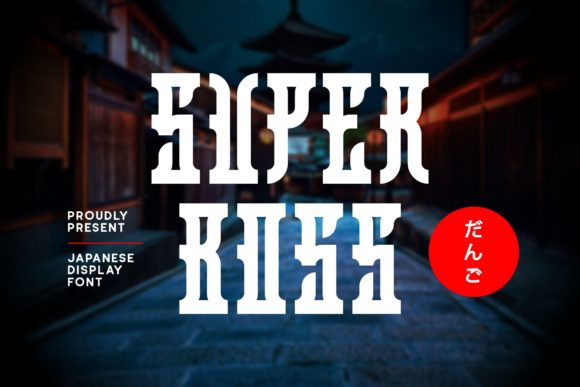
Unleash the Boldness: Introducing Super Boss Font - The Epitome of Strength and Confidence
In the realm of digital artistry and expression, fonts hold the power to transform ordinary words into captivating visual masterpieces. Among the vast array of fonts, few possess the raw audacity and commanding presence of Super Boss, a display font that exudes strength, confidence, and a touch of playful defiance. Created by the visionary designers at ovoz.graphics, Super Boss is not just a font; it's an emblem of individuality, a statement of purpose.
With its bold strokes and assertive curves, Super Boss demands attention, making it the perfect choice for a wide range of creative endeavors. Envision your designs adorned with this remarkable font, from the sleek lines of business cards to the vibrant energy of event posters. Super Boss will elevate your creations, turning them into captivating works of art that resonate with power and originality.
Beyond its captivating aesthetics, Super Boss offers exceptional versatility, effortlessly adapting to a multitude of design projects. Whether you're crafting captivating social media graphics, designing eye-catching logos, or adding a touch of boldness to your website, Super Boss will seamlessly blend with your vision, enhancing your message with its innate charisma.
But what truly sets Super Boss apart is its ability to evoke emotions, to stir the senses, and to leave an unforgettable impression on your audience. Its confident strokes convey a sense of authority, while its playful undertones hint at a mischievous spirit, creating a captivating duality that keeps viewers engaged.
So, if you seek a font that embodies strength, individuality, and the courage to stand out, Super Boss is your ultimate choice. With its unwavering boldness and undeniable charm, this remarkable font will transform your designs into unforgettable experiences, leaving a lasting impact on all who encounter it. Embrace the power of Super Boss and let your creativity soar to new heights.